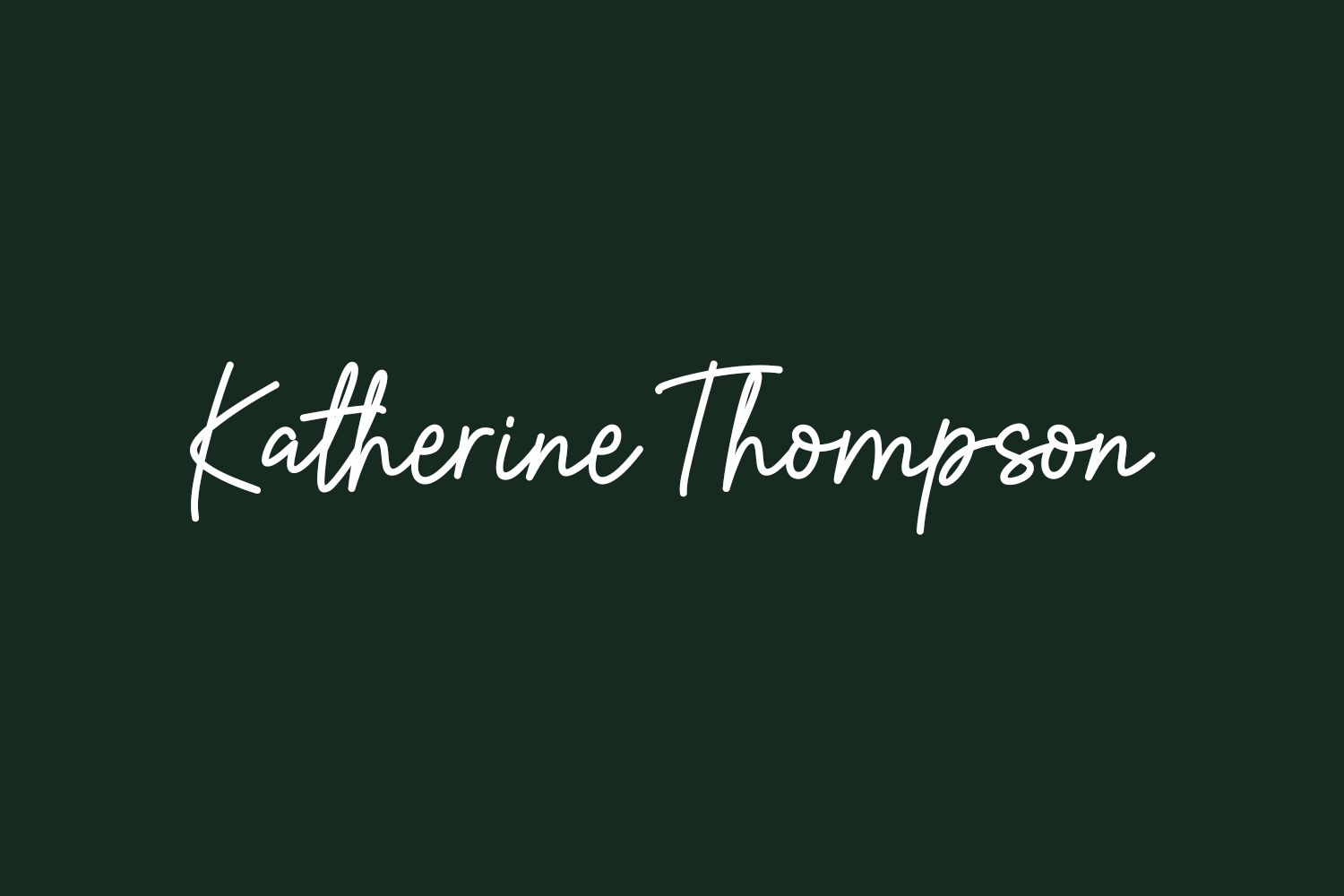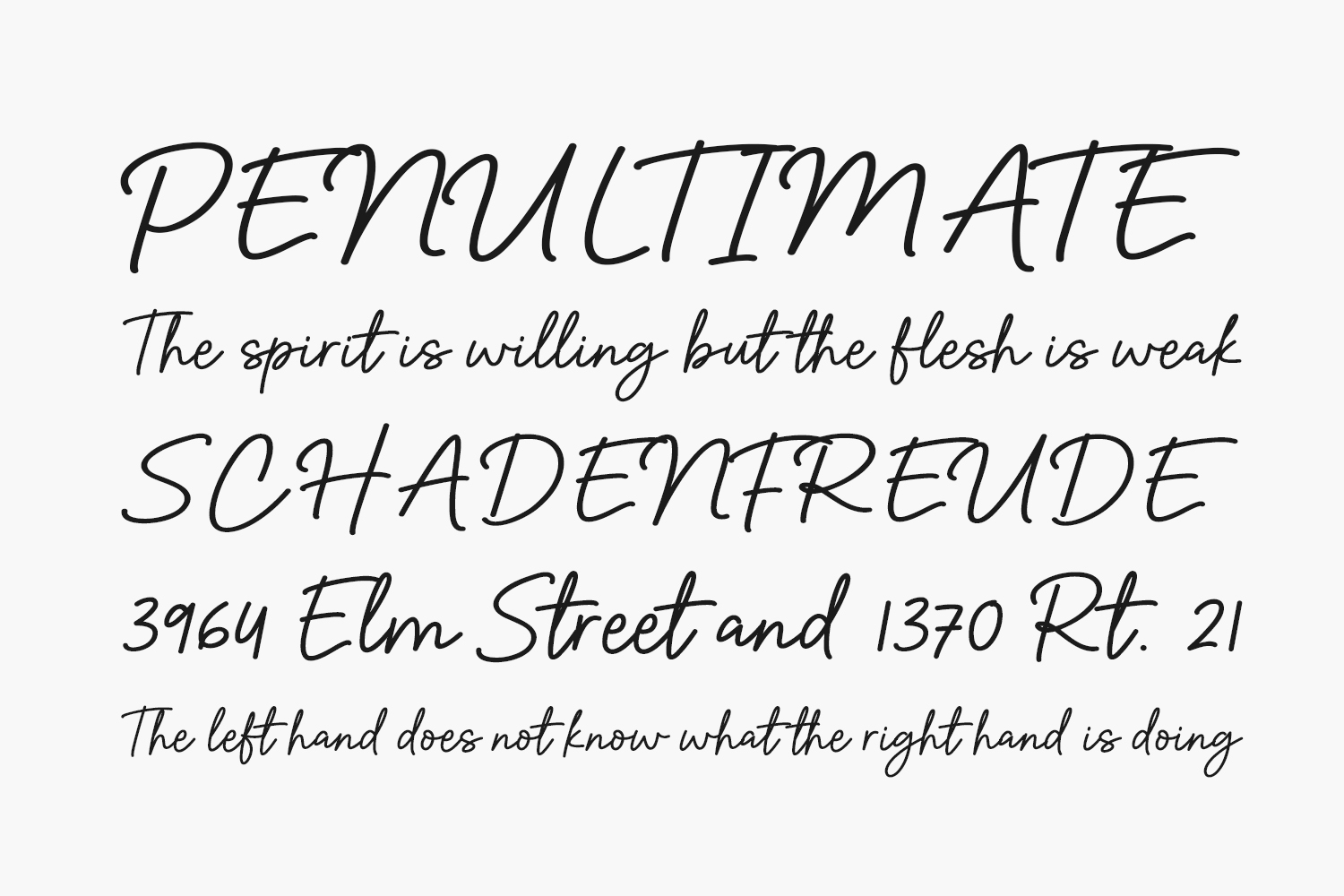
Meet Katherine Thompson Free Font, a sleek monoline signature script font exuding cool sophistication. Its effortless charm ensures readability and unparalleled versatility. Ideal for branding, logos, blog headlines, social media posts, advertisements, product designs, labels, stationery, wedding designs, product packaging, and beyond, Katherine Thompson adds a stylish casual touch to any project. Download the font for free if you need it for personal use or purchase the full version for commercial use.
Designed by Jimtype Studio